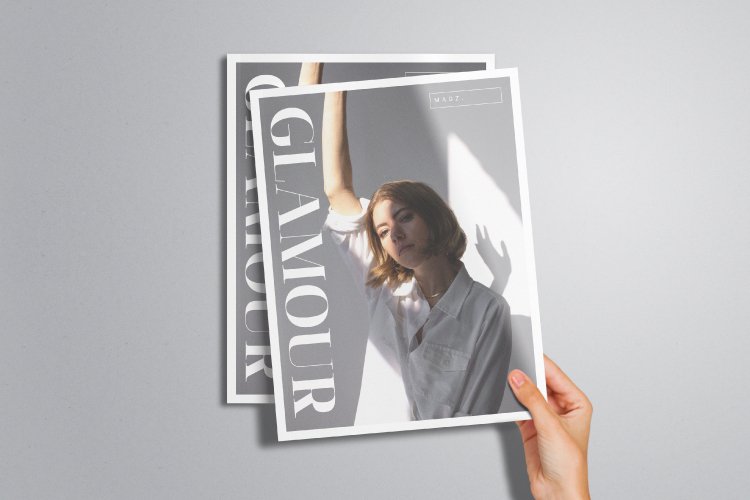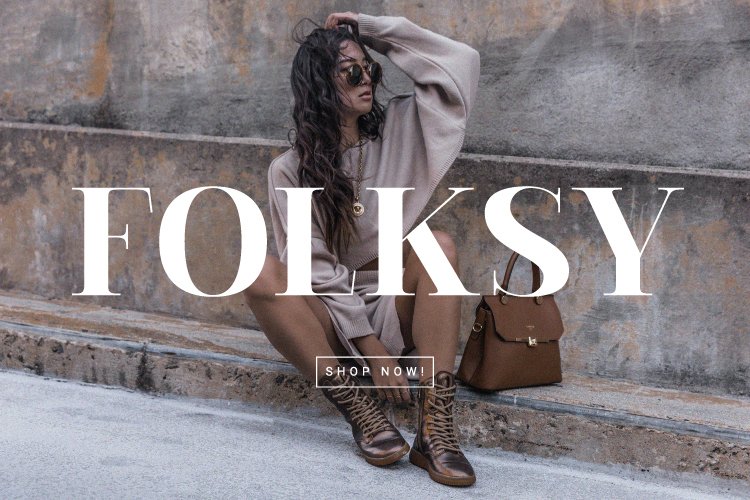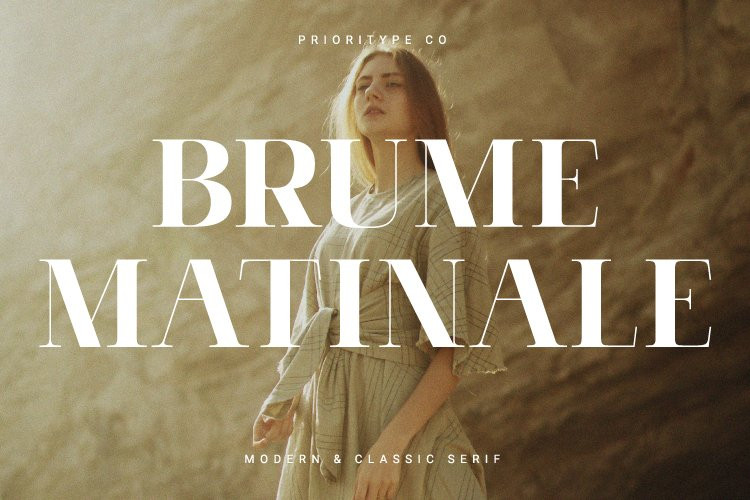
Brume Matinale Font
Brume Matinale FontBrume Matinale – Modern & Classic Serif
A charming font for the fashion world with a modern and classic look. Perfect for designs like creative posts, posters, magazines, logos and more.